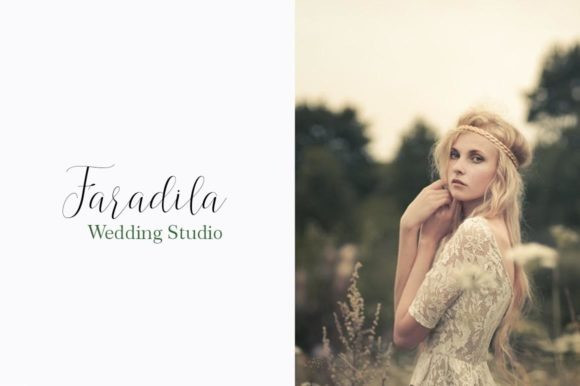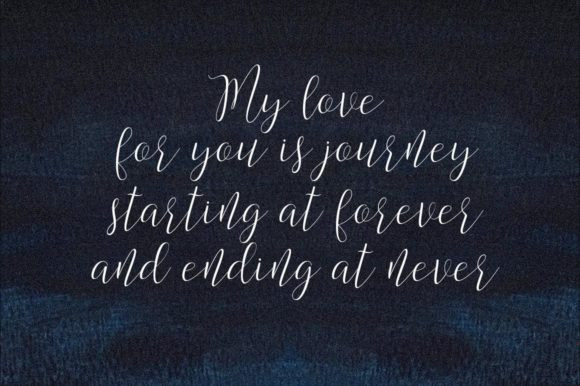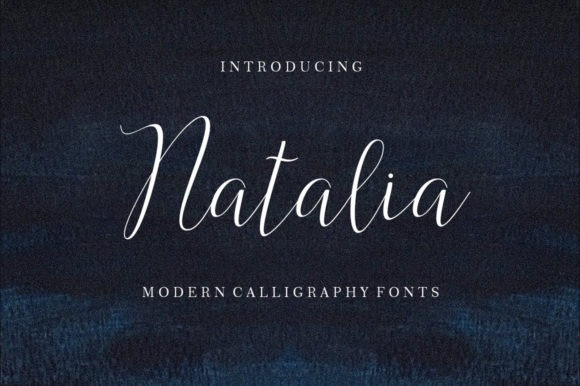
Natalia Font
Natalia Font is a beautiful light handwritten font with a unique feel and a stunning impact. It will add a luxury spark to any design project that you wish to create! This font is PUA encoded which means you can access all of the amazing glyphs and ligatures with ease!